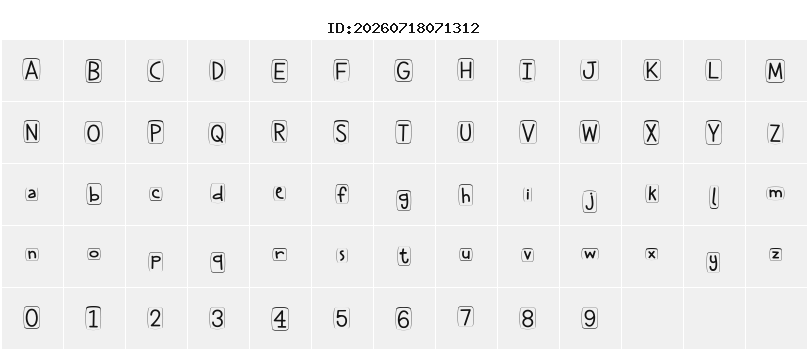
• Font Name: Cheddar Salad BTN Cameo
• Full Font Name: Cheddar Salad BTN Cameo
About Cheddar Salad BTN Cameo.ttf
Cheddar Salad BTN Cameo.ttf is a modern, elegant sans-serif font designed for ultimate readability and visual harmony. Perfect for branding, headlines, web design, and print materials.